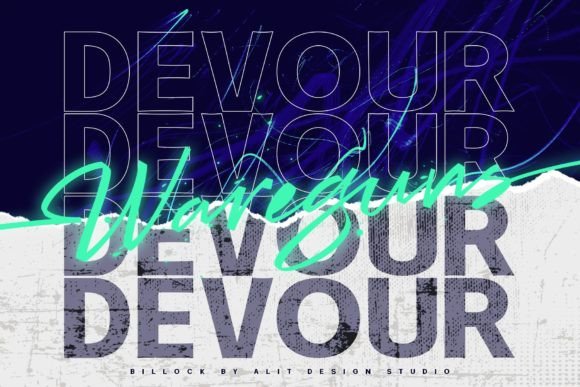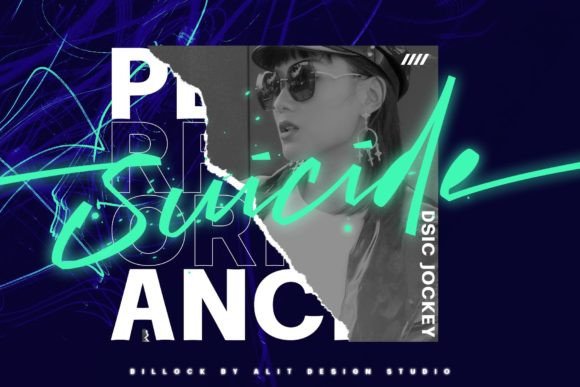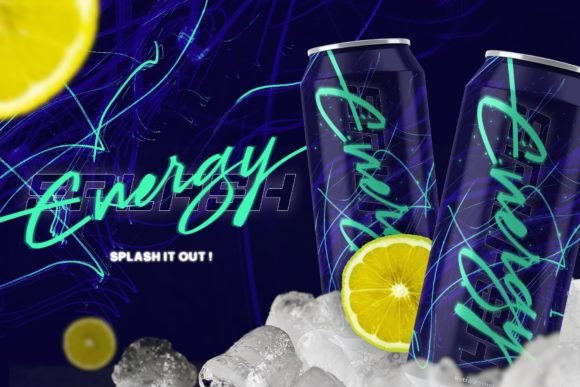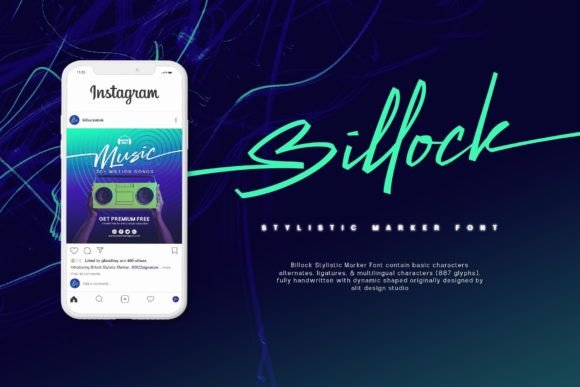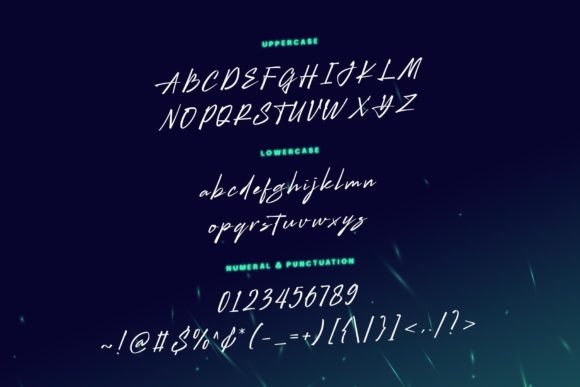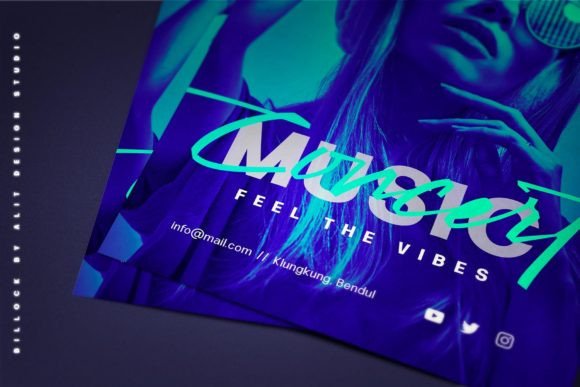
Introducing Billock Font: Elevate Your Designs with Elegance and Sophistication
In the world of typography, a font can make or break a design. It’s the perfect blend of style, elegance, and personality that can elevate a project from ordinary to extraordinary. If you’re on the hunt for a font that exudes class, sophistication, and a touch of modernity, look no further than Billock Font. This exquisite handwritten font is masterfully designed to capture the essence of calligraphic influences while feeling fresh and contemporary.
The Beauty of Billock Font
Billock Font is a true masterpiece, boasting a unique blend of traditional and modern elements. Its classy calligraphic influences are evident in its flowing lines, elegant curves, and precise lettering. Yet, it manages to feel surprisingly contemporary, making it perfect for designers and crafters looking to add a touch of sophistication to their projects.
One of the standout features of Billock Font is its PUA (Private Use Area) encoding. This means that you can access all the amazing glyphs and ligatures with ease, giving you unparalleled creative control over your designs. Whether you’re working on a branding project, packaging design, or social media graphics, Billock Font provides the perfect tools to bring your vision to life.
Why Fall in Love with Billock Font?
So, what makes Billock Font so special? Here are just a few reasons why designers and crafters are falling in love with this stunning font:
• Exquisite Handwritten Style: Billock Font boasts a beautiful, handwritten style that’s perfect for adding a personal touch to your designs.
• Classy Calligraphic Influences: The font’s calligraphic influences give it a sense of elegance and sophistication, making it ideal for high-end designs.
• Contemporary and Fresh: Despite its classic influences, Billock Font feels surprisingly modern and fresh, ensuring your designs stay on-trend.
• PUA Encoded for Easy Access: With PUA encoding, you can easily access all the glyphs and ligatures, giving you maximum creative control.
Billock Font is a versatile font that’s perfect for a wide range of design applications. Whether you’re a professional designer or a crafter looking to add a personal touch to your projects, this font has got you covered.
Some of the ideal uses for Billock Font include:
• Branding and Logo Design: Create stunning logos and brand identities with Billock Font’s elegant, sophisticated style.
• Packaging Design: Add a touch of luxury to your packaging designs with this beautiful, high-end font.
• Social Media Graphics: Elevate your social media graphics with Billock Font’s modern, fresh style.
• Stationery and Invitations: Create gorgeous stationery and invitations with this exquisite handwritten font.
If you’re looking for a font that will take your designs to the next level, look no further than Billock Font. With its exquisite handwritten style, classy calligraphic influences, and contemporary feel, this font is sure to become a true favorite.
In conclusion, Billock Font is a stunning handwritten font that’s sure to capture your heart. Its unique blend of traditional and modern elements makes it perfect for a wide range of design applications. So fall in love with Billock Font and bring your projects to the highest levels!